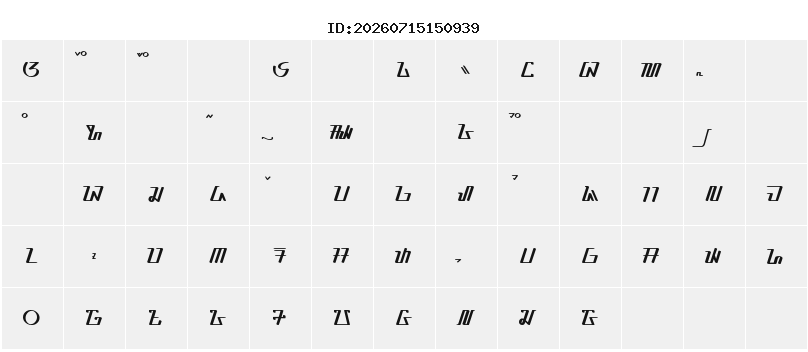
• Font Name: antara - aksara sunda
• Full Font Name: antara - aksara sunda
• Version: Version 1.00 September 15, 2014, initial release
About antara - aksara sunda.ttf
antara - aksara sunda.ttf is a modern, elegant sans-serif font designed for ultimate readability and visual harmony. Perfect for branding, headlines, web design, and print materials.